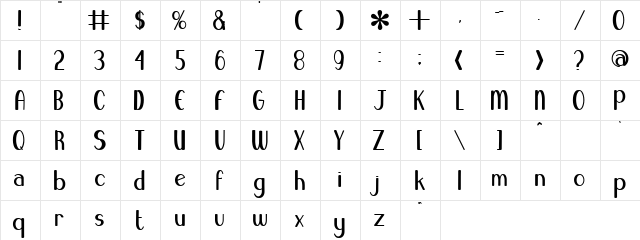
Blue Melody UltraBold
Design Context for Blue Melody Typeface
Blue Melody is a composed and adaptable typeface that performs quietly and consistently across a wide range of design contexts. The heavy weight commands attention and anchors typographic hierarchies.